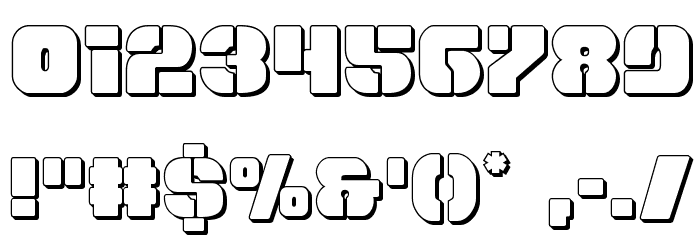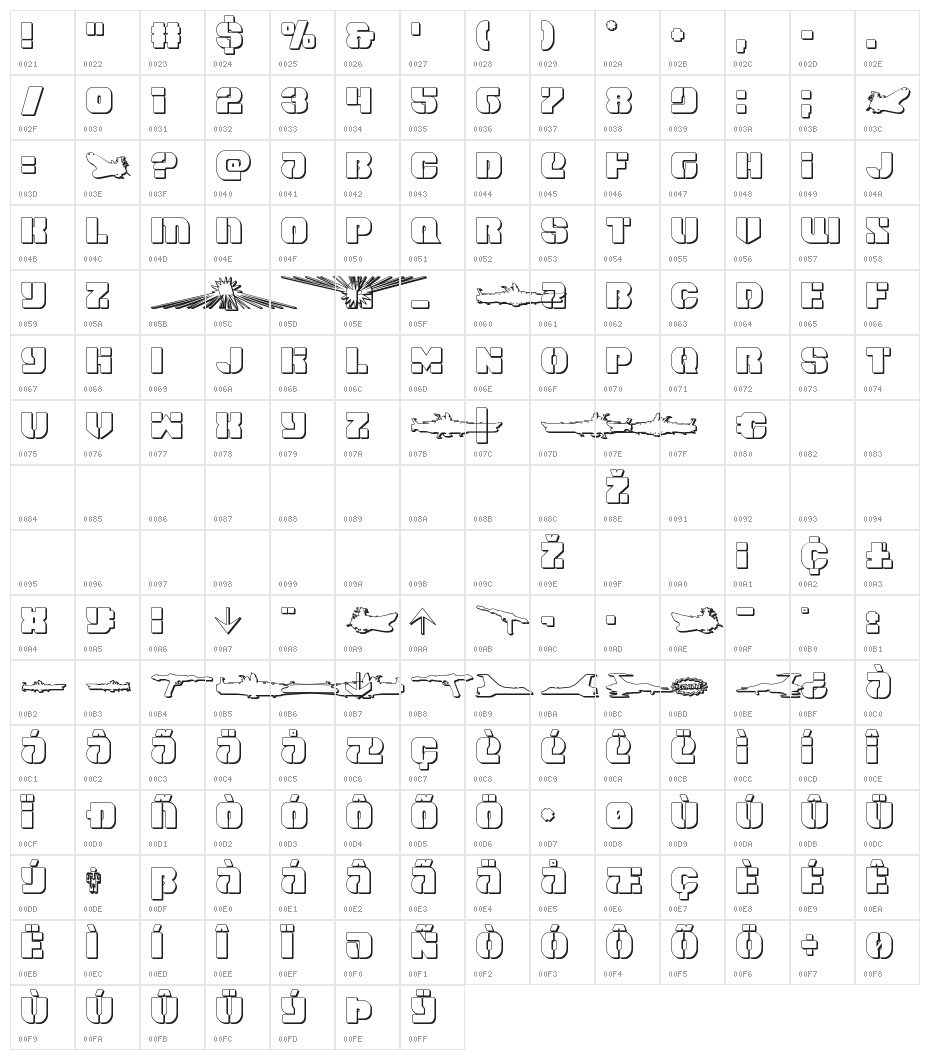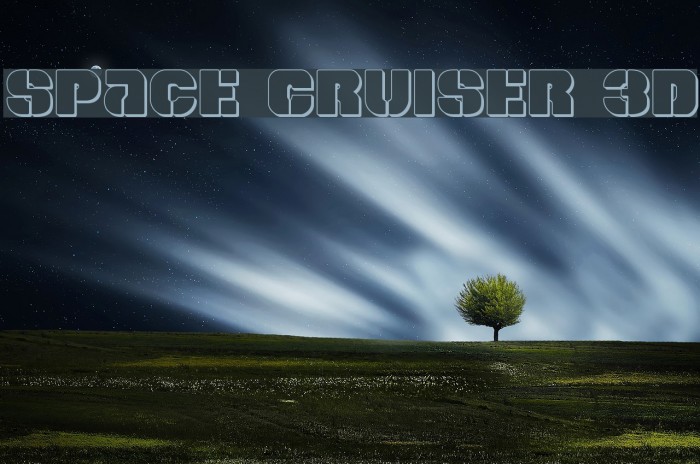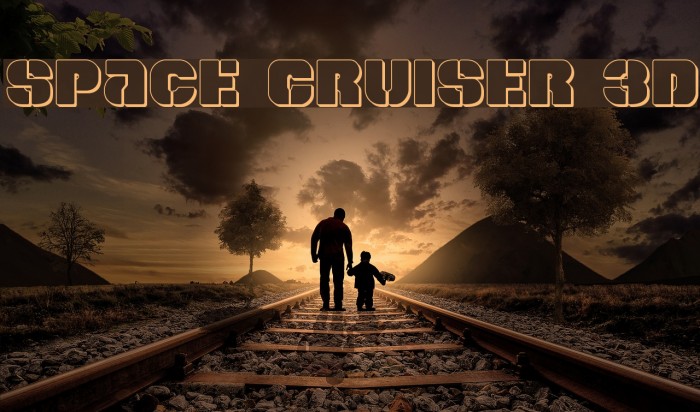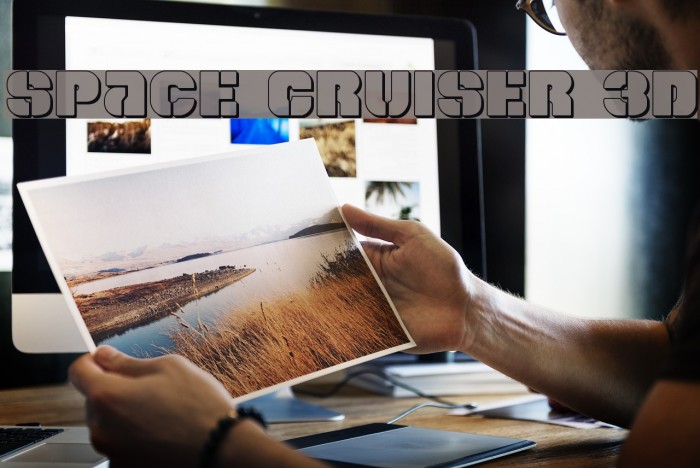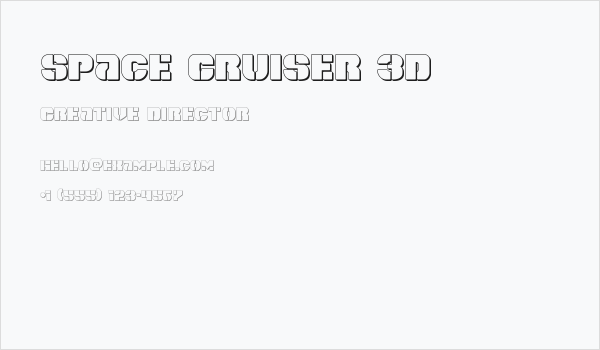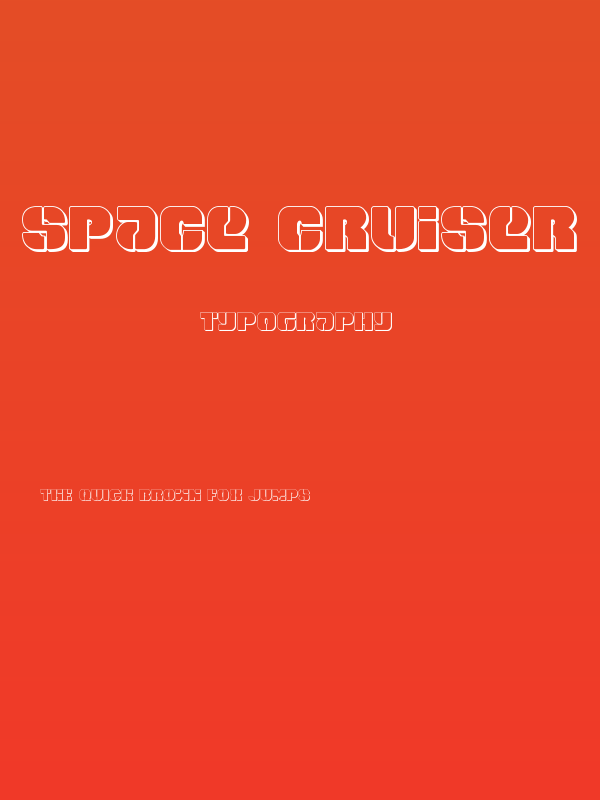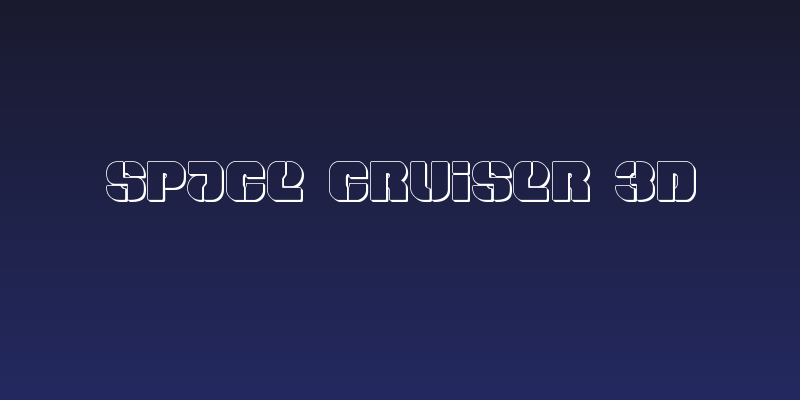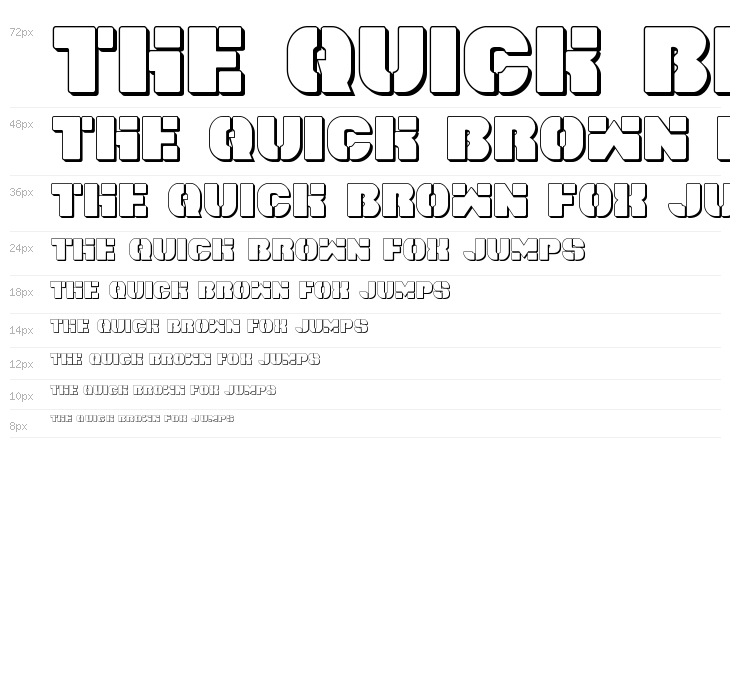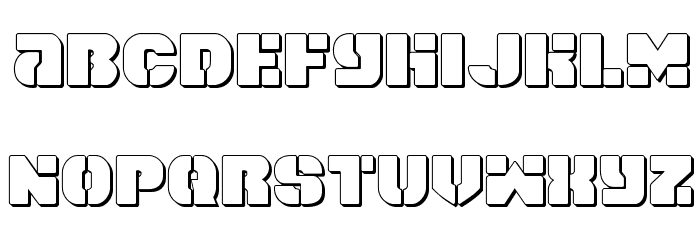
Space Cruiser 3D Font
Space Cruiser 3D Description
This font features a bold, three-dimensional style with a futuristic and geometric design. Each character is outlined, creating a sense of depth and dimension. The letters are blocky with rounded edges, giving them a soft yet industrial appearance. The font is highly stylized, making it ideal for attention-grabbing headlines or logos. Its unique 3D effect is achieved through the use of shadowing and perspective, which adds a dynamic and modern touch. The characters are evenly spaced, ensuring readability while maintaining a cohesive look. This font is perfect for projects that require a bold statement and a modern aesthetic.
| Proposed Projects | Ideal for sci-fi themed posters, video game titles, futuristic branding, and tech-related logos. |